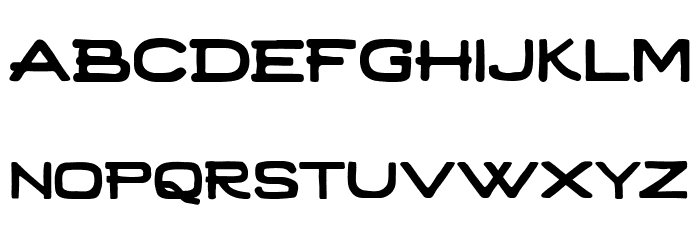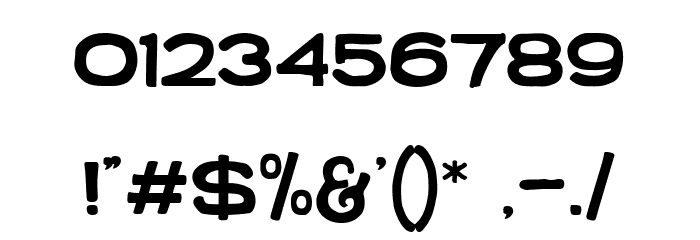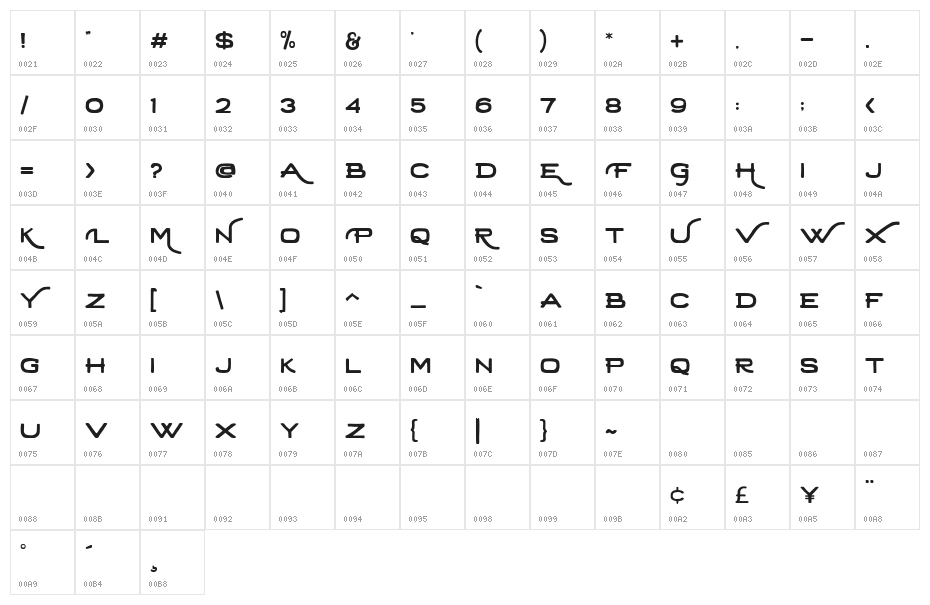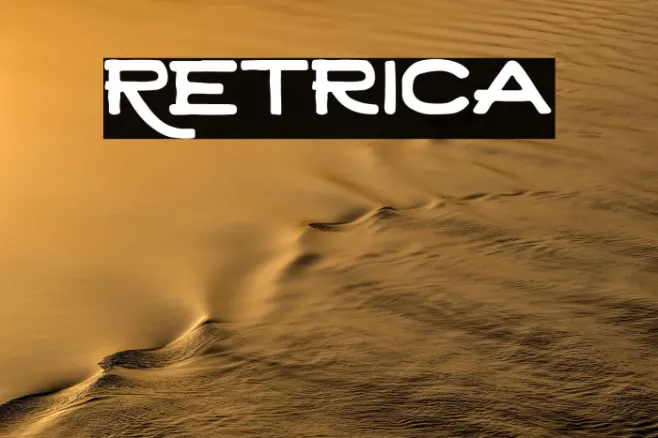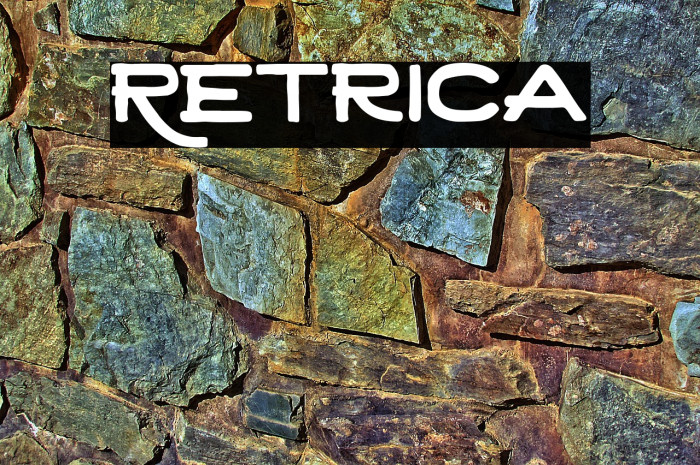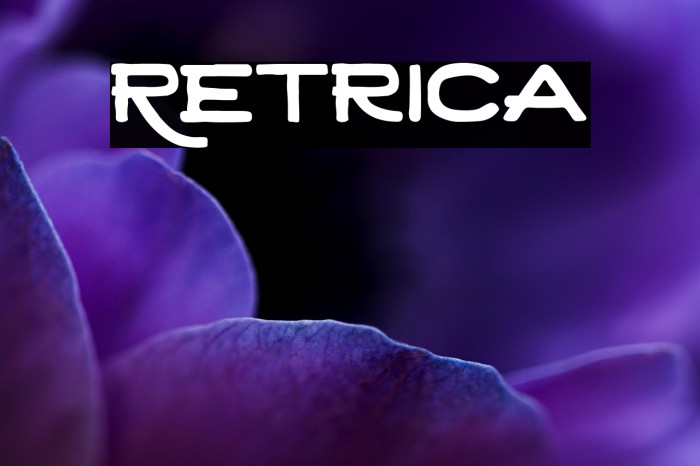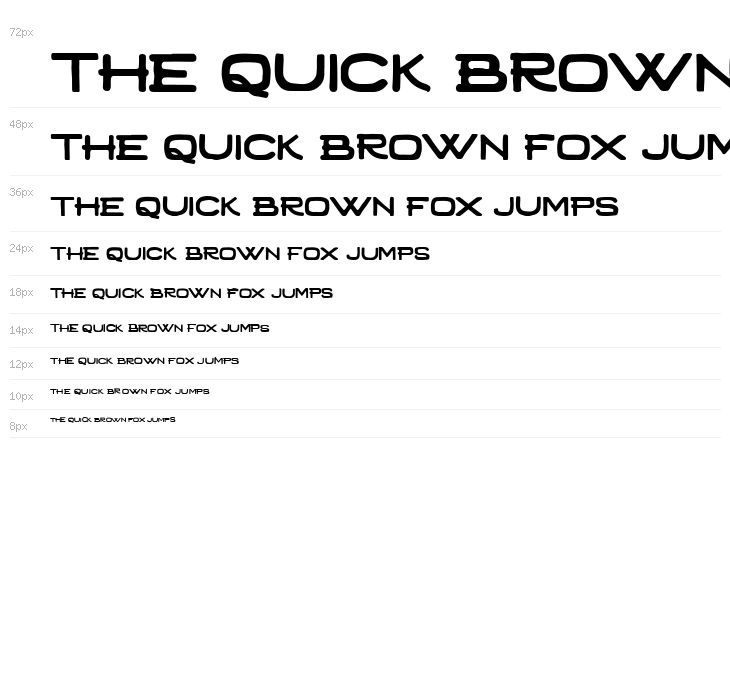
Retrica Font
This font features a unique blend of modern and decorative styles, characterized by its bold, rounded letterforms with distinct curves and flourishes. The uppercase letters have a playful yet sophisticated appearance, with some characters exhibiting extended strokes and loops that add a whimsical touch. The lowercase letters maintain a consistent style, complementing the uppercase with their smooth, flowing lines. The numerals are bold and clear, ensuring readability while maintaining the font's overall aesthetic. Special characters are designed with the same attention to detail, making them suitable for a variety of creative applications.
A bold, decorative font with rounded letterforms and playful curves.
- Proposed Projects: Ideal for branding, posters, and creative projects that require a distinctive and modern look.
- Overall Style: Modern, Decorative